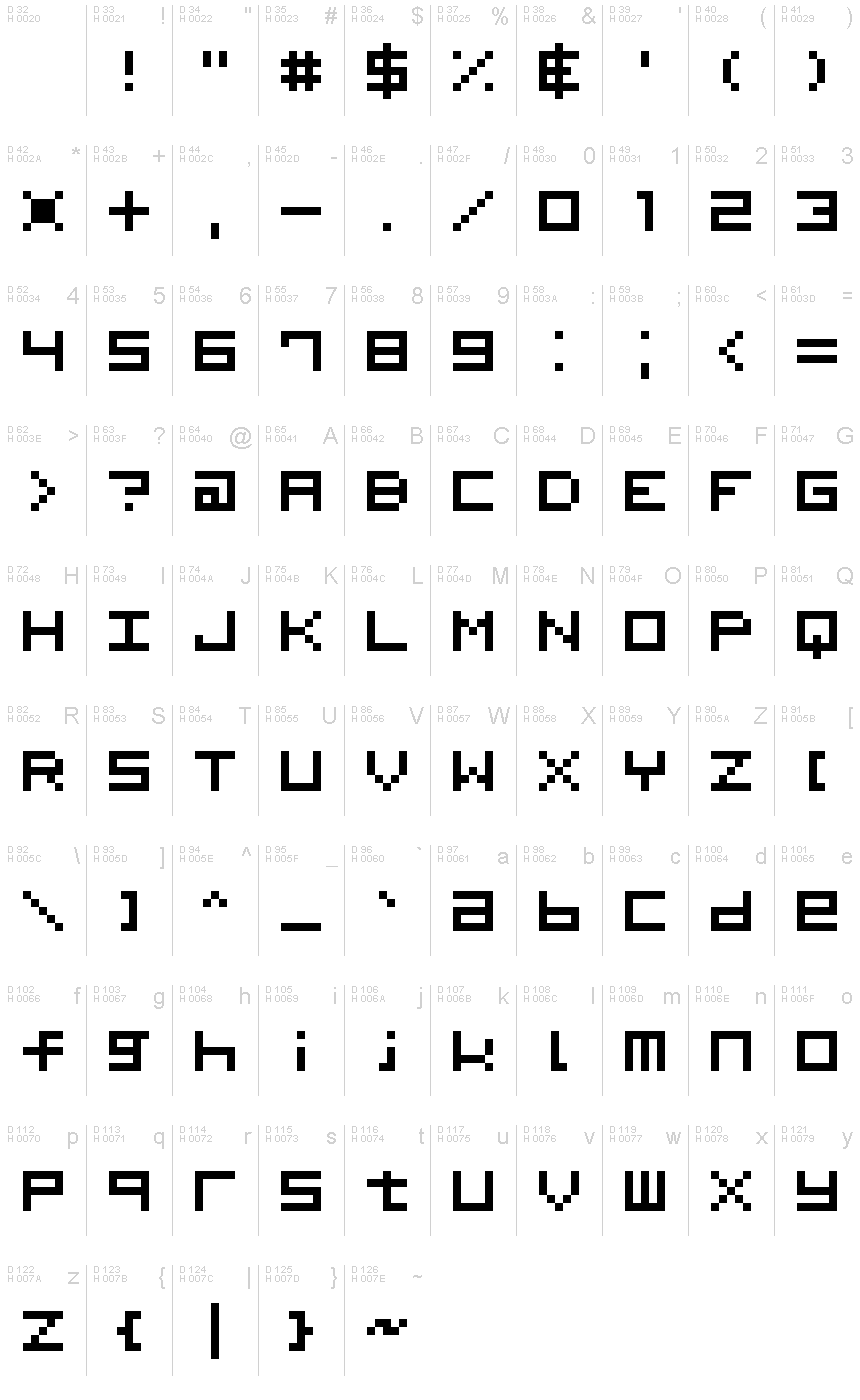
Reblinking Regular
Reblinking is my first font I've ever done, and it's similar to both fonts called "Visitor" and "SadMachine", but supporting Russian, Ukranian, Serbian, Vietnamese and some other languages else. I hope you all enjoy this font and thanks for downloading. :)
Designer description: Reblinking. Similar to both fonts called "Visitor" by Ænigma and "SadMachine", decided to remaster them to a raised amount of letters and symbols, now available the Cyrillic and even more latin letters. I love pixels, and this might be the supposed reason why I made this font in base. This font is reserved to use in gaming cases as well, such as showcasing the best moments in your favorite game. This is the only font from those both similar ones compatible for Russian, Ukranian, Serbian and Vietnamese languages; I made it to let it easier for European and Asian relations with themselves for those who are looking for this font. Also, I hope you all enjoy this awesome font and thanks for downloading it. Don't be bored if you find something weird in this font; I'm just a starter and I'm testing it, and soon I'll make more fonts. Don't forget to rate Reblinking here after you download it… just let me know about your thinkings here;)